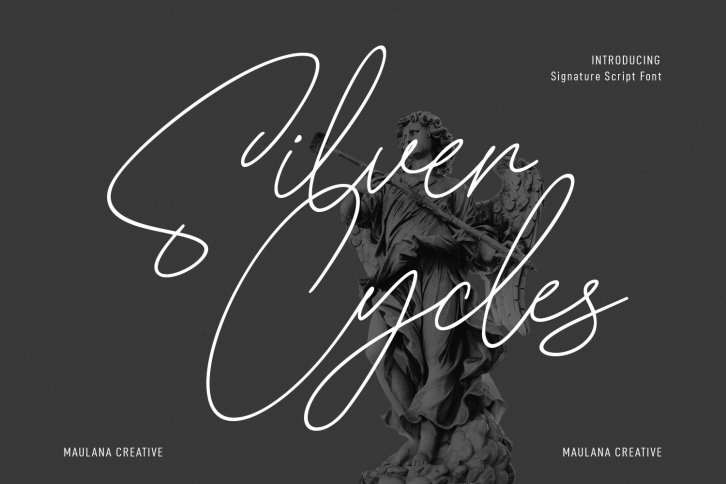
Silver Cycles Signature Script is a gorgeous font that was realeased on October 15, 2022. The font can be used in many style contexts and design environments. Perfect for invitations, magazines, websites, logos, and more! It was designed by Maulana Creative and the file size is 2.51 MB. Thanks for checking out this font!